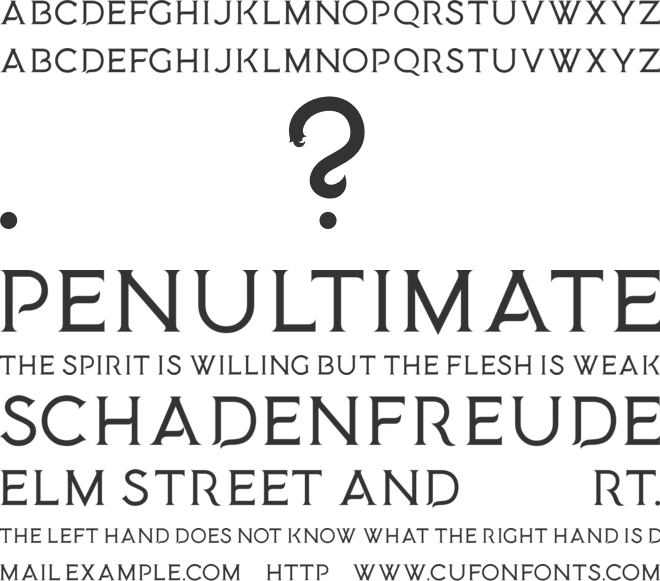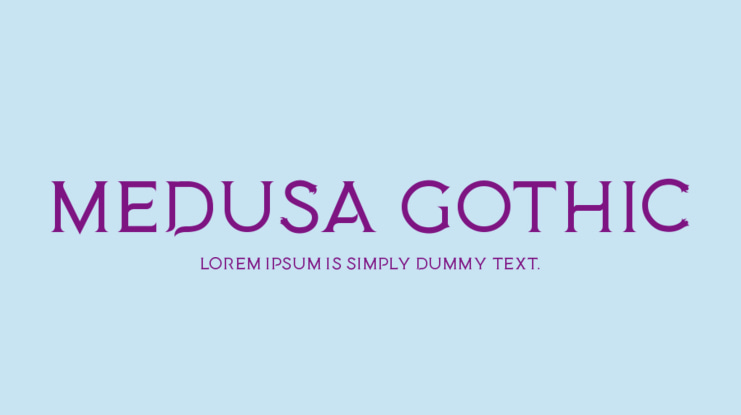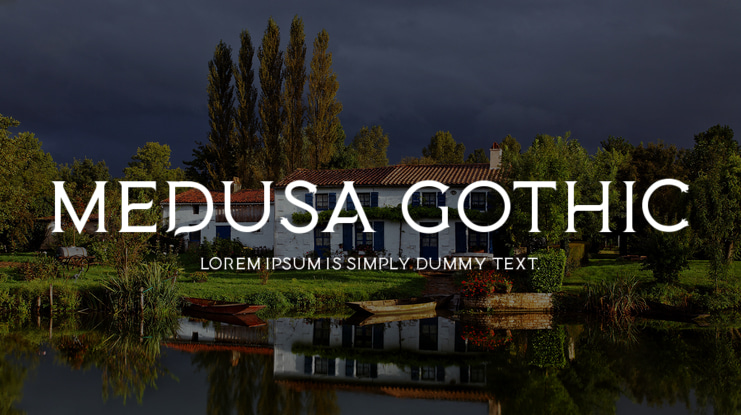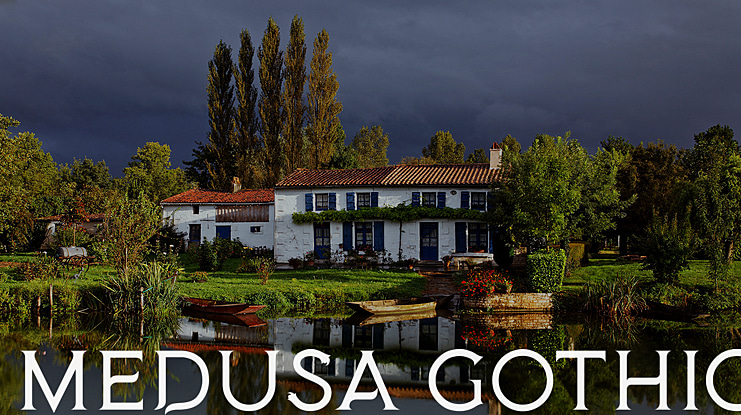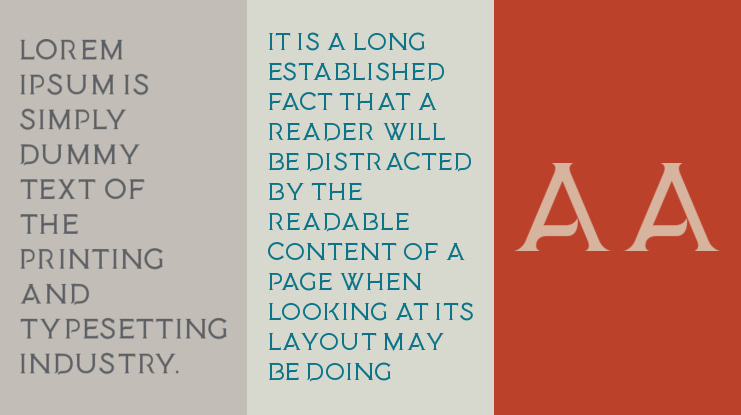
Medusa Gothic Font
Medusa Gothic is a Romanesque serif display font custom tailored for titles and logos. Subtle, yet curious leaf-like ornaments hug the ends of the lowercase C, J, and S. Alternate between all caps to ditch these leaves. Basic Latin, extended Latin, European accents, kerning, and limited punctuation are all included. Classic Roman letterforms are combined with undulating glyphs to provide a simple, yet striking family that will command attention. This light weight typeface combined with liberal kerning will gobble up horizontal space and give your project a unique look. Use Medusa Gothic on your next book cover, game, billboard, or logo. The full version which includes punctuation and numbers is available for $25 (PERSONAL USE only). Simply visit www.sharkshock.net/pay and confirm which font youd like. For commercial use please visit this page: www.sharkshock.net/license or email us. Commercial usage without a valid end user license agreement (EULA) is strictly forbidden. Thank you for your support!